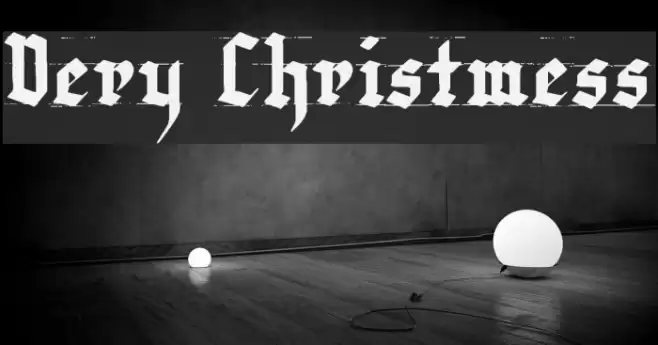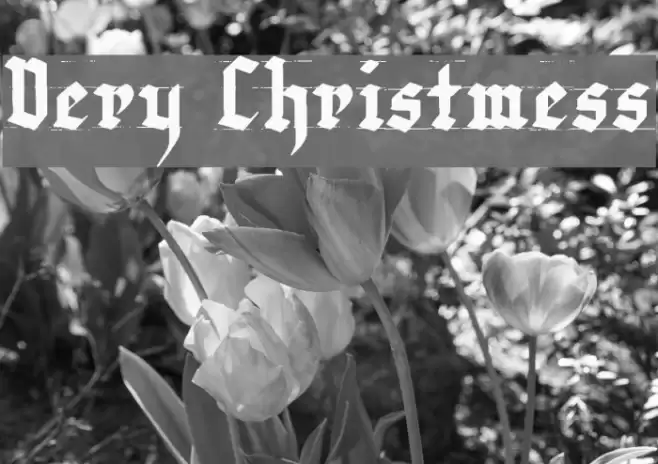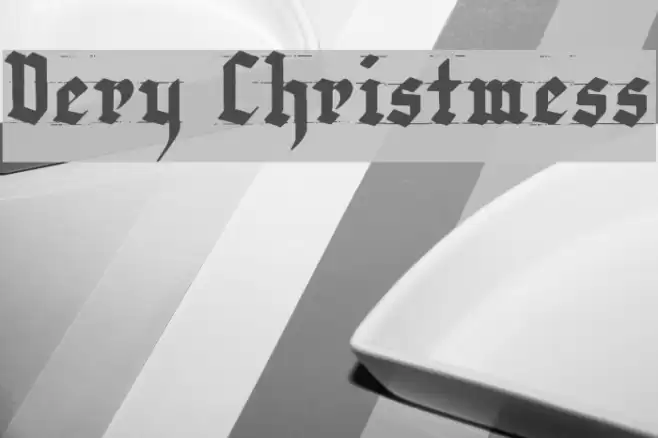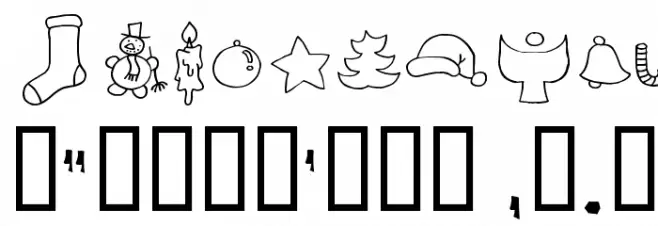
Very Christmess Font
Very Christmess Description
This font features a distinct Blackletter style, characterized by its sharp, angular lines and dramatic strokes. The uppercase and lowercase letters exhibit a traditional Gothic appearance, with intricate detailing that adds a sense of historical elegance. The font includes a variety of Christmas-themed symbols, such as stockings, snowmen, and ornaments, enhancing its festive appeal. The numerals are bold and consistent with the overall style, maintaining the same angular and decorative elements. This font is ideal for creating a vintage, holiday-themed aesthetic.
A Blackletter font with festive Christmas symbols, ideal for vintage holiday designs from Gothic fonts.
- Proposed Projects: Holiday greeting cards, festive event invitations, Christmas-themed posters, and decorative signage.
- Overall Style: Vintage, Decorative
- Use Case: Headlines, Logos, Decorative text